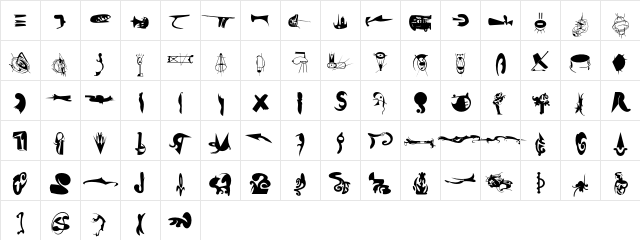
FellaParts Too
Design Context for FellaParts Typeface
FellaParts is a composed and adaptable typeface that performs quietly and consistently across a wide range of design contexts.